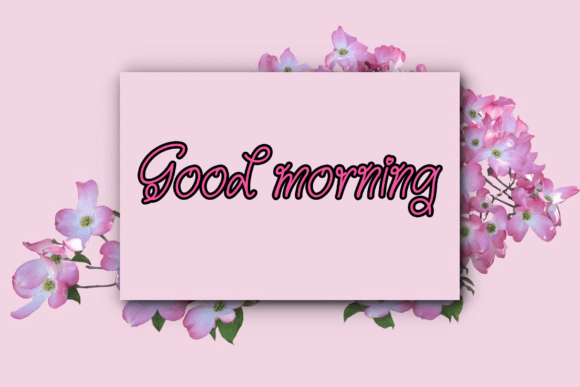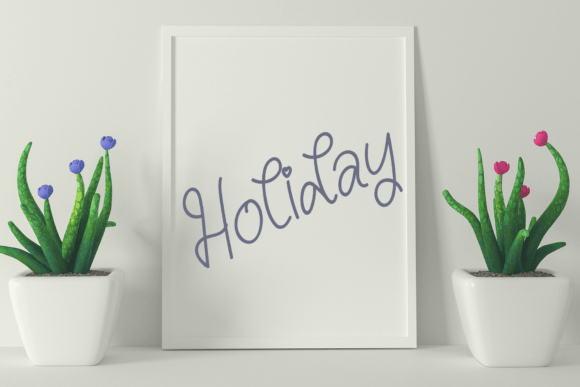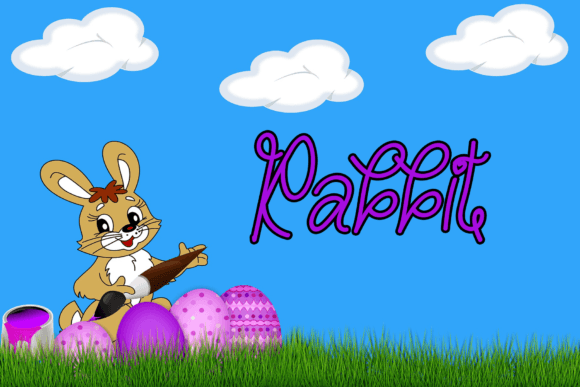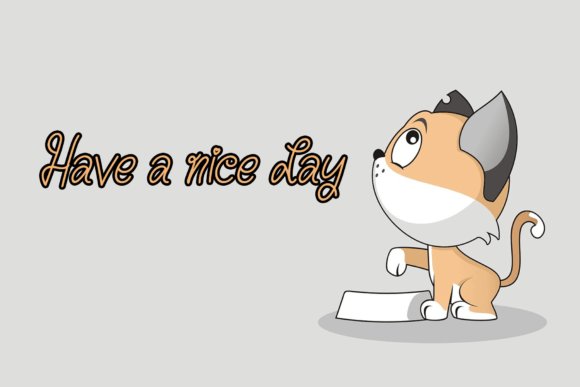
Discover the Timeless Beauty of the Baby Duck Font
Have you ever stumbled upon a font that makes your design come alive? For many creatives, this moment is a game-changer. You spend hours browsing through fonts, trying to find the perfect match for your project, and then – voilà! – you see it: a font that speaks directly to your heart. This is exactly what happens when you lay eyes on the Baby Duck Font. Its elegant touch and distinctive style will make your projects stand out from the crowd.
As a designer, you know how challenging it can be to find a font that perfectly captures the essence of your vision. The Baby Duck Font is a valuable addition to any design toolkit, offering a timeless style that’s both versatile and sophisticated. Whether you’re working on a personal project or a client’s brief, this font is sure to deliver.
Baby Duck Font Key Features
- Unique Characteristics: Whimsical, hand-drawn design with a playful and charming feel
Design Review: Baby Duck Font
I recently had the chance to work with the Baby Duck Font, and I have to say it’s a unique and charming choice for any project. Here’s my honest take on this font.
- Uniqueness: Baby Duck Font truly stands out from the crowd with its quirky and playful design.
- Expressiveness: The font is perfect for projects that need a touch of whimsy and personality.
- Legibility: Despite its playful nature, the font is surprisingly easy to read, making it a great choice for body text.
- Readability in small sizes: While the font is legible in larger sizes, it can become difficult to read in smaller font sizes.
- Limited language support: Baby Duck Font may not be optimized for languages with non-Latin scripts.
Overall, I think Baby Duck Font is a great choice for projects that need a touch of personality and whimsy. While it may have some limitations, its unique design and expressiveness make it a standout font in my book.
Tips for Getting the Most Out of Baby Duck Font
To get the most out of the Baby Duck Font, use it for whimsical and playful designs, such as children’s party invitations, nursery decor, and cartoon characters.
The Baby Duck Font is commonly used for:
– Children’s party invitations and decorations
– Nursery decor and wall art
– Cartoon characters and animated designs
– Whimsical and playful branding and marketing materials
Alternatives to Baby Duck Font
Pacifico is a beautiful, elegant script font that is perfect for creating a sense of sophistication and luxury. It is ideal for use in invitations, wedding stationery, and other high-end designs. Compared to Baby Duck Font, Pacifico has a more refined and polished look, making it a great choice for projects that require a touch of class.
Great Vibes is a modern script font that is perfect for creating a fun and playful atmosphere. It is ideal for use in social media graphics, blog posts, and other designs that require a sense of energy and excitement. Compared to Baby Duck Font, Great Vibes has a more dynamic and expressive look, making it a great choice for projects that require a lot of personality.
Carolyna Pro is a elegant and refined script font that is perfect for creating a sense of sophistication and luxury. It is ideal for use in high-end designs, such as fashion magazines, luxury brands, and fine art. Compared to Baby Duck Font, Carolyna Pro has a more refined and polished look, making it a great choice for projects that require a touch of elegance.
Q: What is the font’s recommended size range?
The Baby Duck Font is designed to be highly legible at a wide range of sizes. However, for optimal results, we recommend using the font at sizes between 12pt and 48pt for body text and 60pt and above for headings.